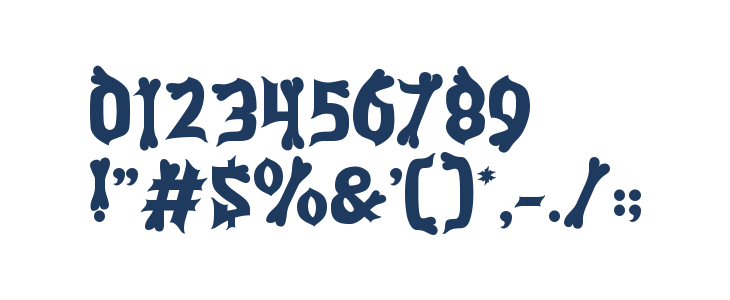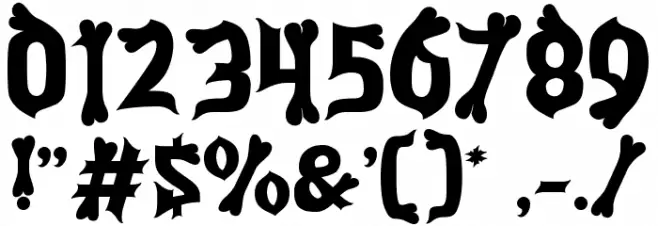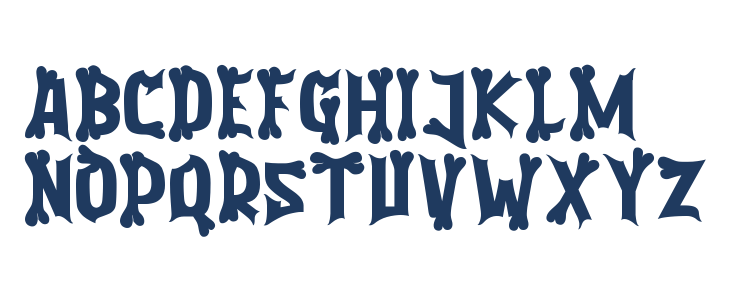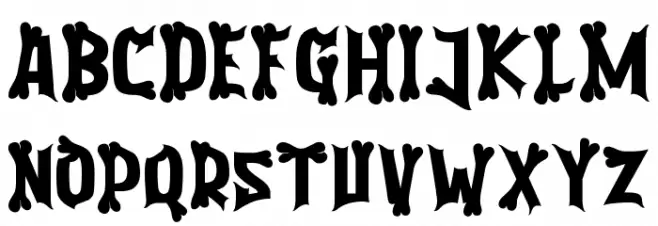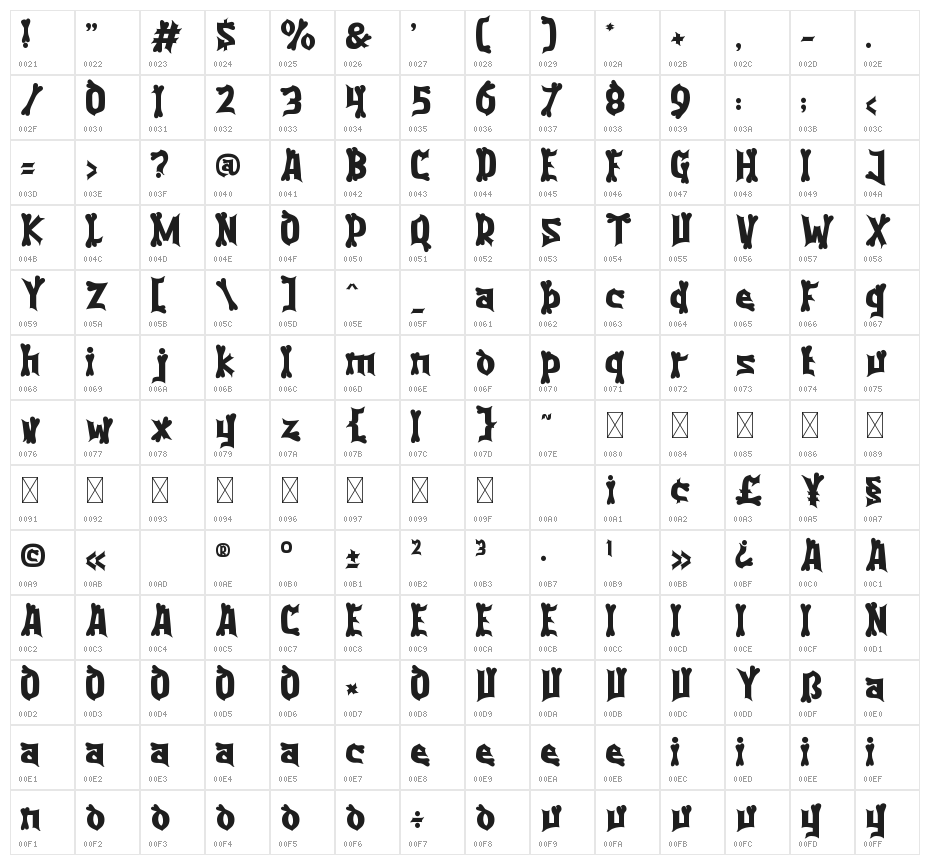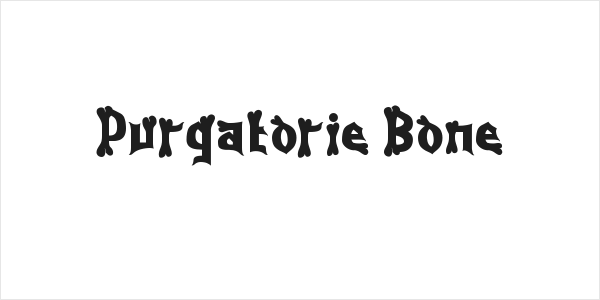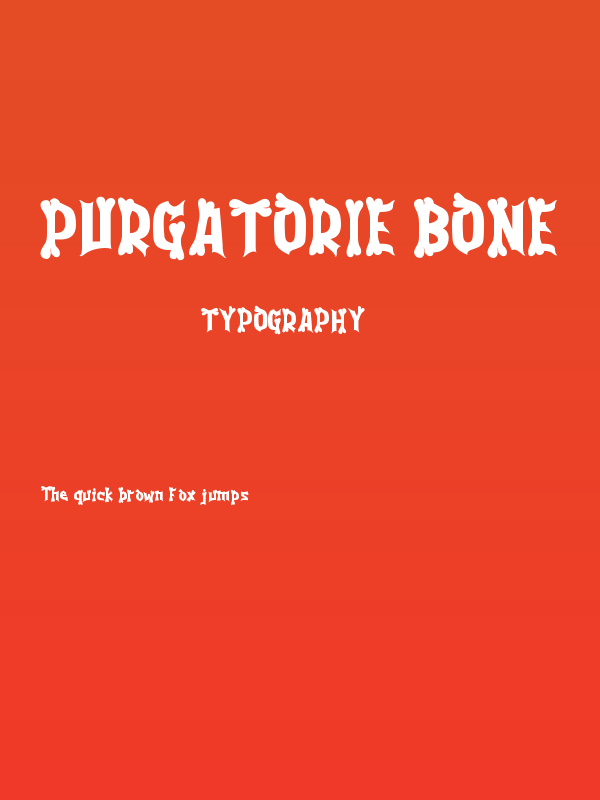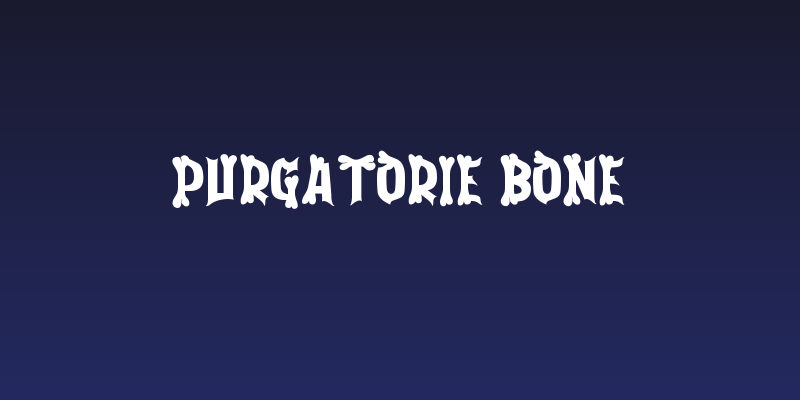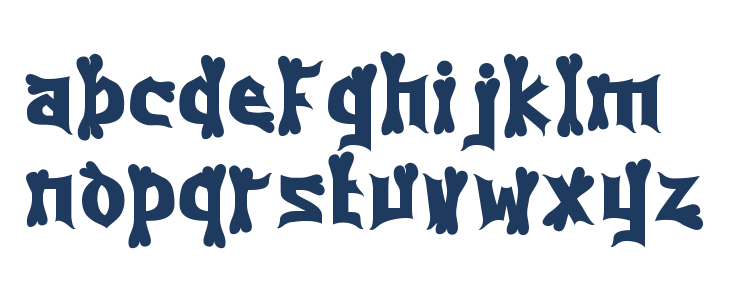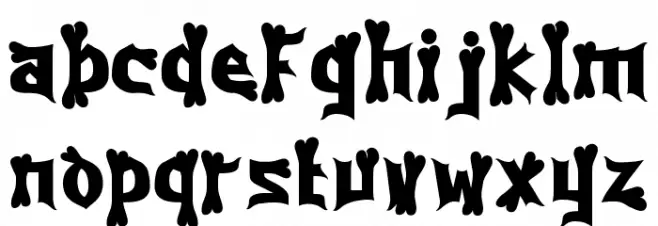
Purgatorie Bone Font
Purgatorie Bone Description
A bold, decorative display font with thick strokes and bone-like, organic shapes at the ends of each character, evoking a spooky or Halloween-inspired aesthetic. The letterforms are irregular and playful, with high contrast and unique detailing.
| Overall Style | Decorative, Spooky, Playful |
| Use Case | Headlines, Posters, Logos, Themed Graphics |
| Proposed Projects | Halloween posters, horror-themed event flyers, party invitations, haunted house signage, themed merchandise. |